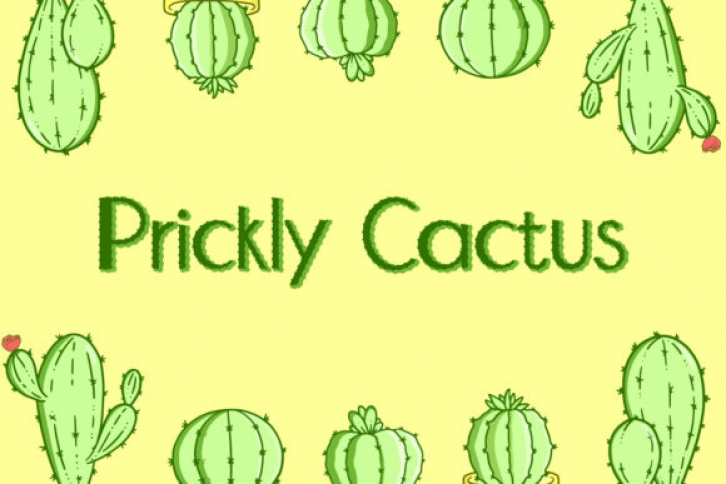
Prickly Cactus is a sweet and incredibly distinct sans serif font. Its friendly feel makes this font incredibly versatile, fitting a wide range of contexts. Add it to your creative ideas and notice how it makes them stand out!